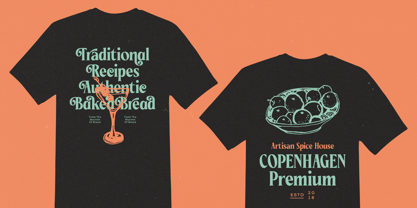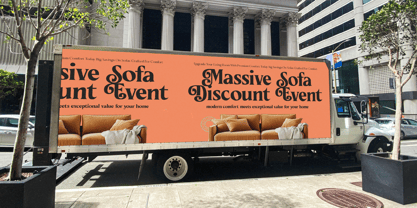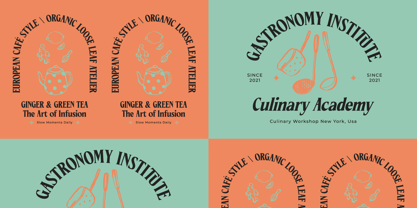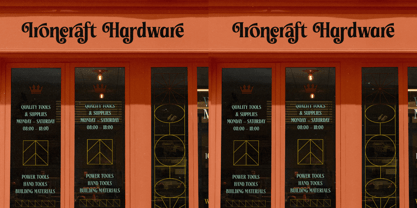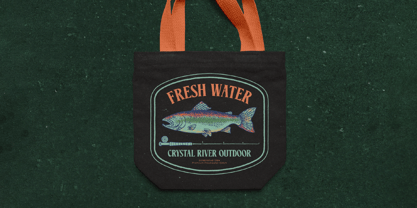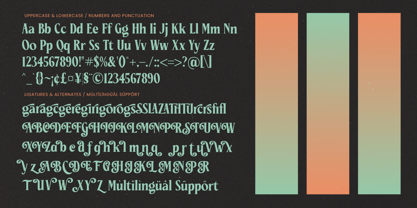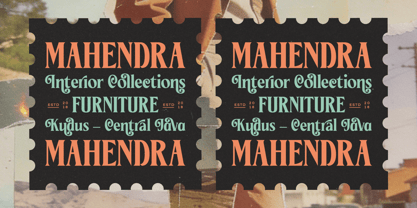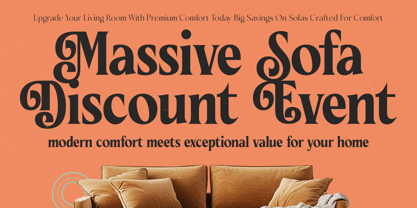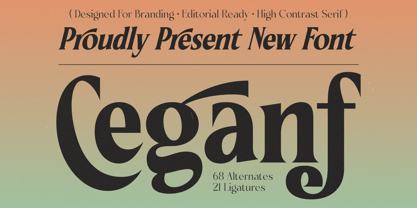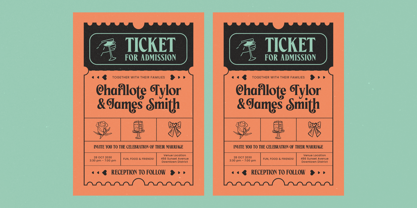
The Ceganf Font Family was designed by Heru Utama Putra and published by Timelesstype Studio. Ceganf contains 2 styles and family package options. More about this family
Ceganf is a high-contrast serif typeface crafted for bold branding and refined editorial design. Featuring sculpted curves, dramatic stroke contrast, and confident letterforms, this font delivers a powerful yet sophisticated presence across print and digital media. Designed for modern luxury aesthetics, Ceganf blends classic serif elegance with contemporary structure, making it ideal for logos, magazine headlines, fashion editorials, packaging, book covers, and premium brand identities. With 68 alternates and 21 ligatures, it offers versatile typographic combinations that elevate layouts with distinctive character and visual rhythm. Perfect for designers seeking a stylish, editorial-ready serif that balances strength, elegance, and timeless appeal.
Ceganf